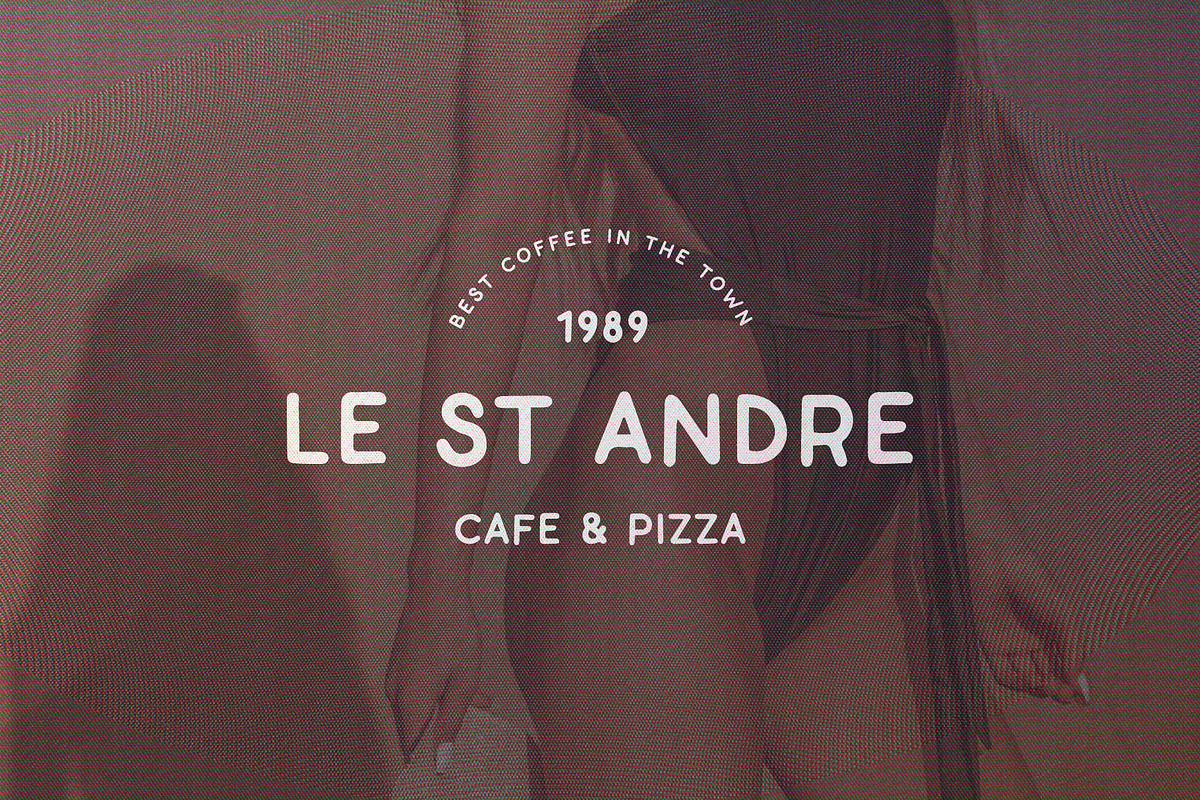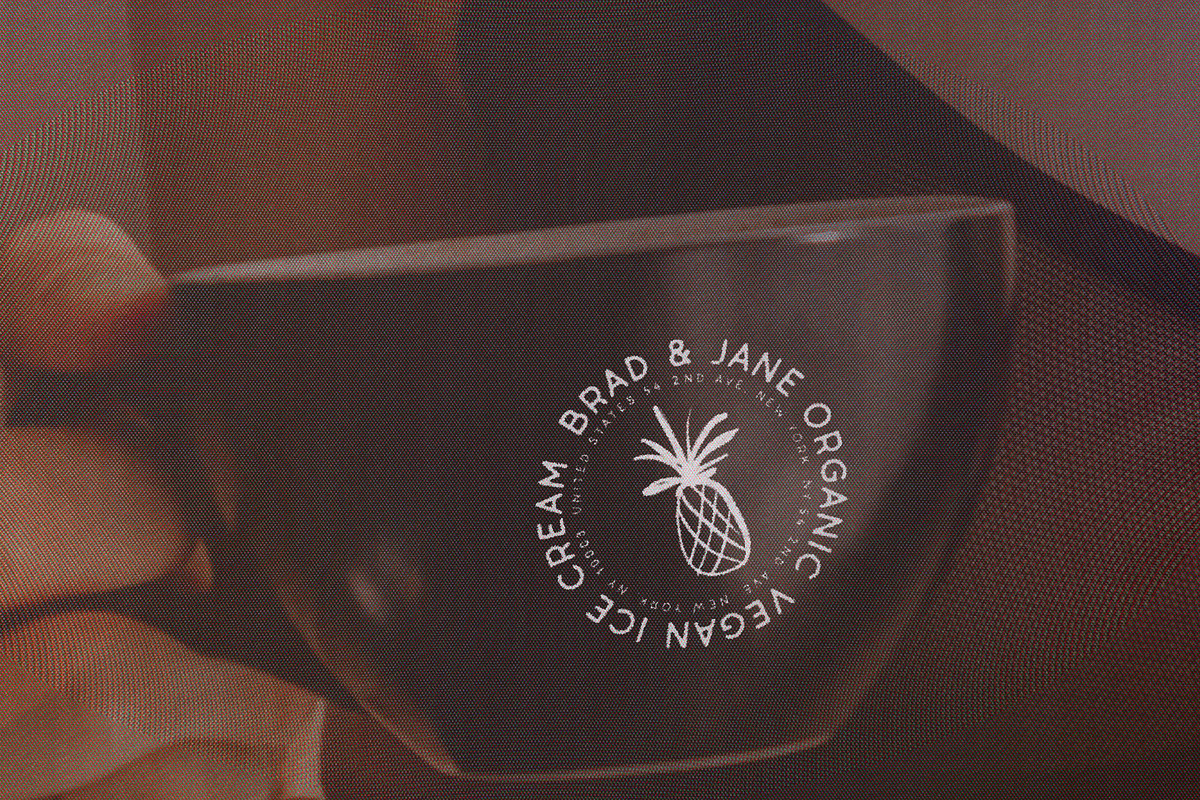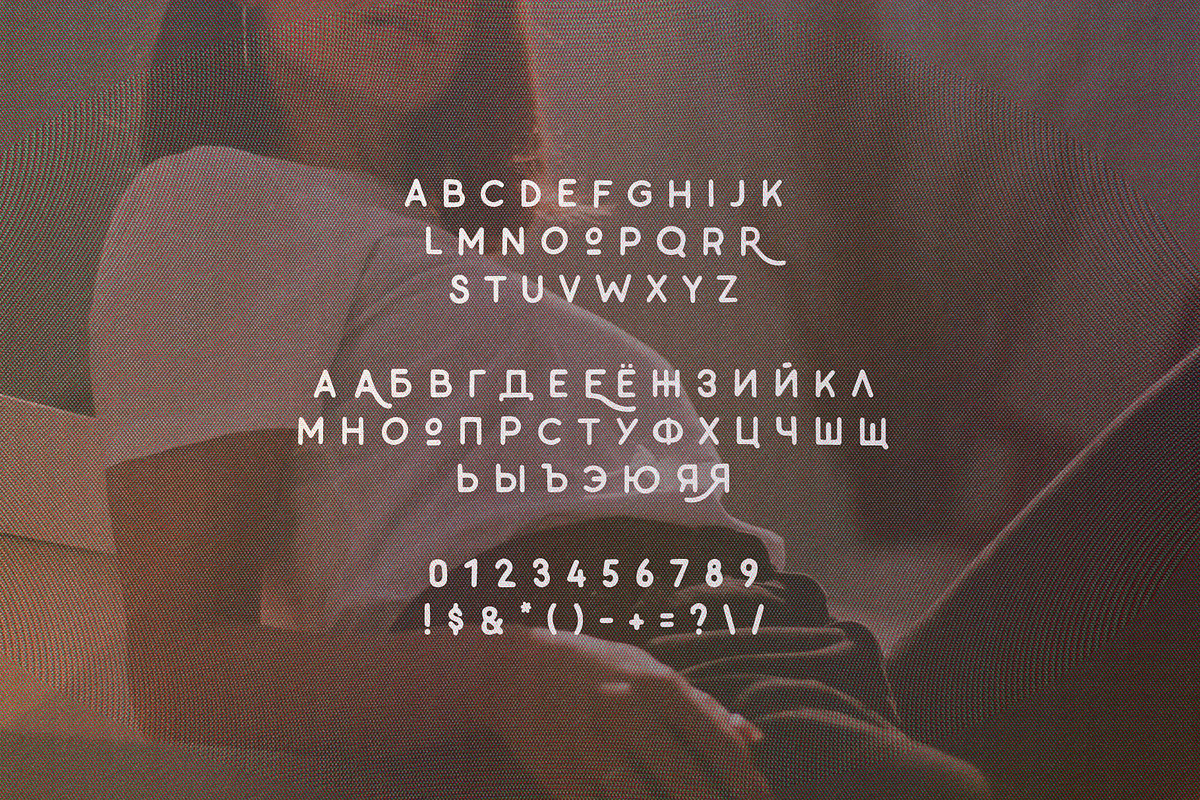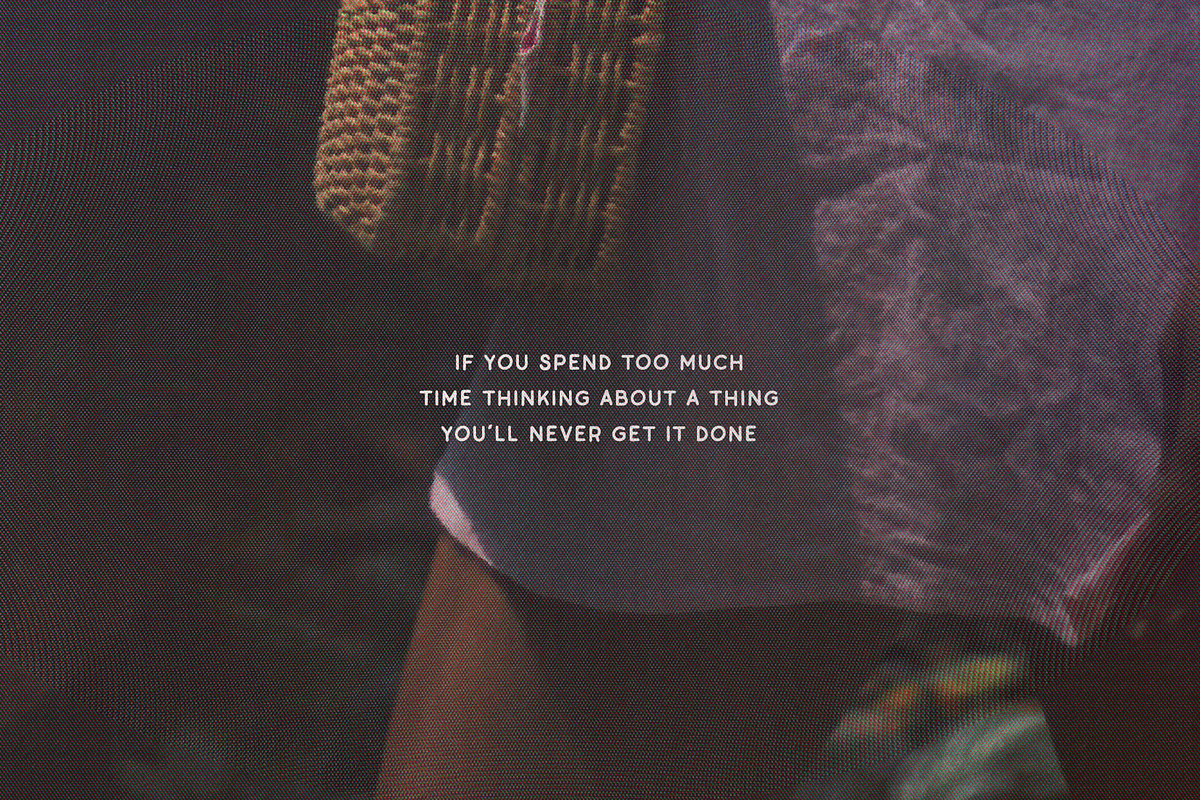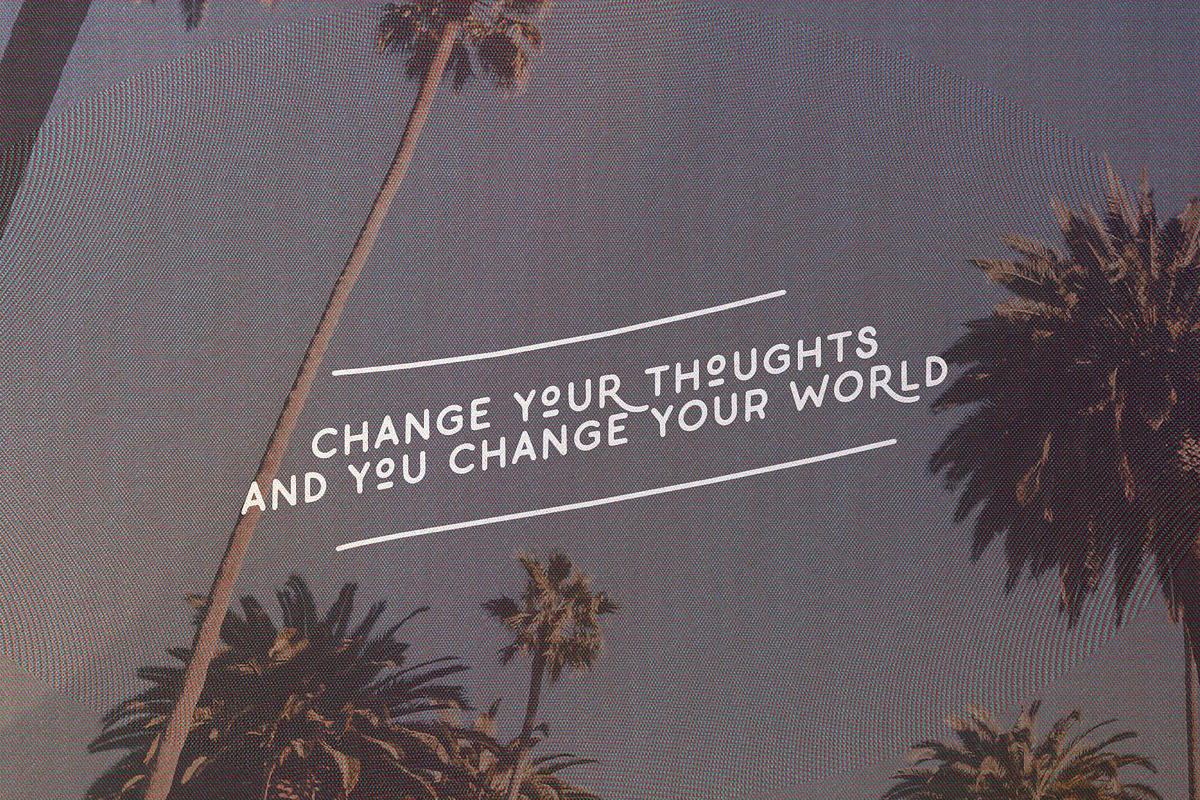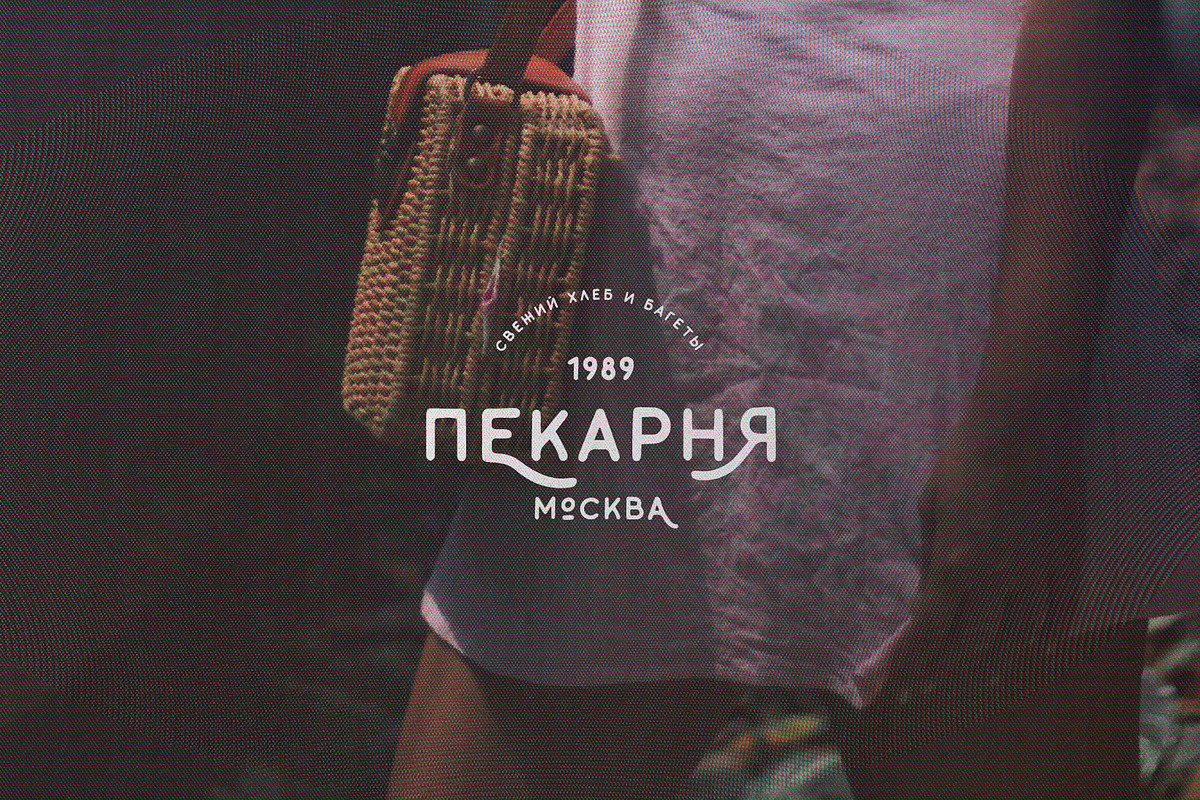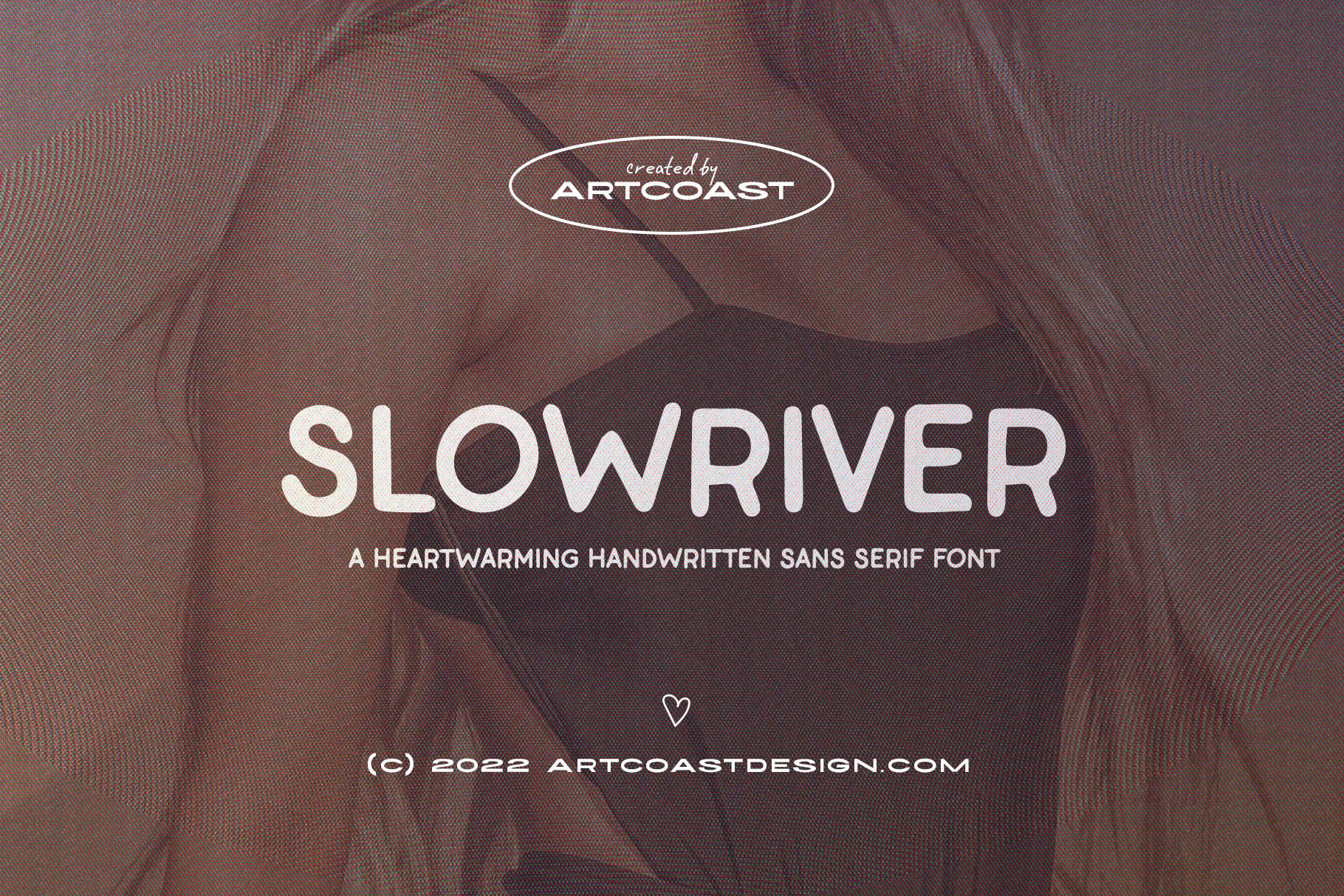
Slow River Handwritten Sans Font
Slow River is a warm handwritten sans font inspired by vintage American signs and small-batch branding. Its soft, uneven letterforms and friendly rounded structure create an authentic hand-rendered character without sacrificing clarity.
Uppercase Latin alphabet
Cyrillic character support
Use Slow River for café logos, restaurant menus, food packaging, coffee labels, craft brands, apparel, posters, quotes, social media, invitations, and casual editorial titles. Its nostalgic personality works especially well in badge designs, curved text, and approachable identity systems.